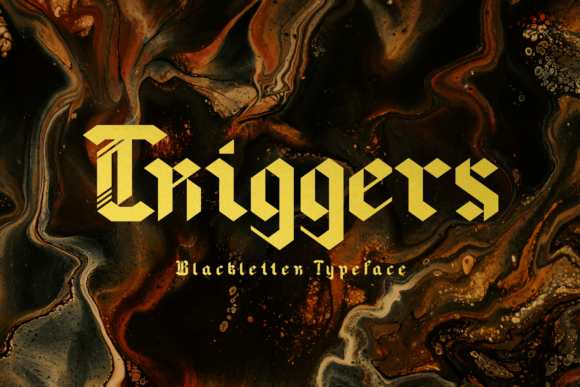
Presenting Triggers: A Blackletter Font to Command Attention
In the realm of typography, few font families exude the raw power and charisma of Triggers. This bold and assertive blackletter font is a visual masterpiece that demands attention and leaves an indelible mark on your designs. With its uniquely shaped letters, Triggers stands out from the crowd of conventional fonts, offering a distinct touch to a wide spectrum of creative endeavors.
Crafted by the skilled hands of takoliko, Triggers is a font that speaks to the heart and soul of designers. Its imposing presence and captivating aesthetics make it the perfect choice for projects that demand a strong visual impact. Whether you're creating posters, logos, branding materials, or eye-catching headlines, Triggers has the allure to transform your words into a captivating visual symphony.
Dive into the world of blackletter fonts and discover a new level of creative expression with Triggers. Its bold strokes and confident curves command attention, while its intricate details add depth and character to your designs. Unleash your imagination and let Triggers elevate your projects to new heights of visual appeal.
Embrace the distinct charm of Triggers and witness how it effortlessly complements a diverse range of creations. From bold headlines that demand attention to intricate logos that exude elegance, Triggers is the ultimate tool for designers seeking to make a lasting impression.
Don't settle for ordinary fonts that blend into the background. Choose Triggers, the blackletter font that captivates, inspires, and ignites your creativity. Its imposing presence and unique aesthetics are sure to leave a lasting impression on your audience, making Triggers the perfect choice for designers who dare to stand out and make a statement.